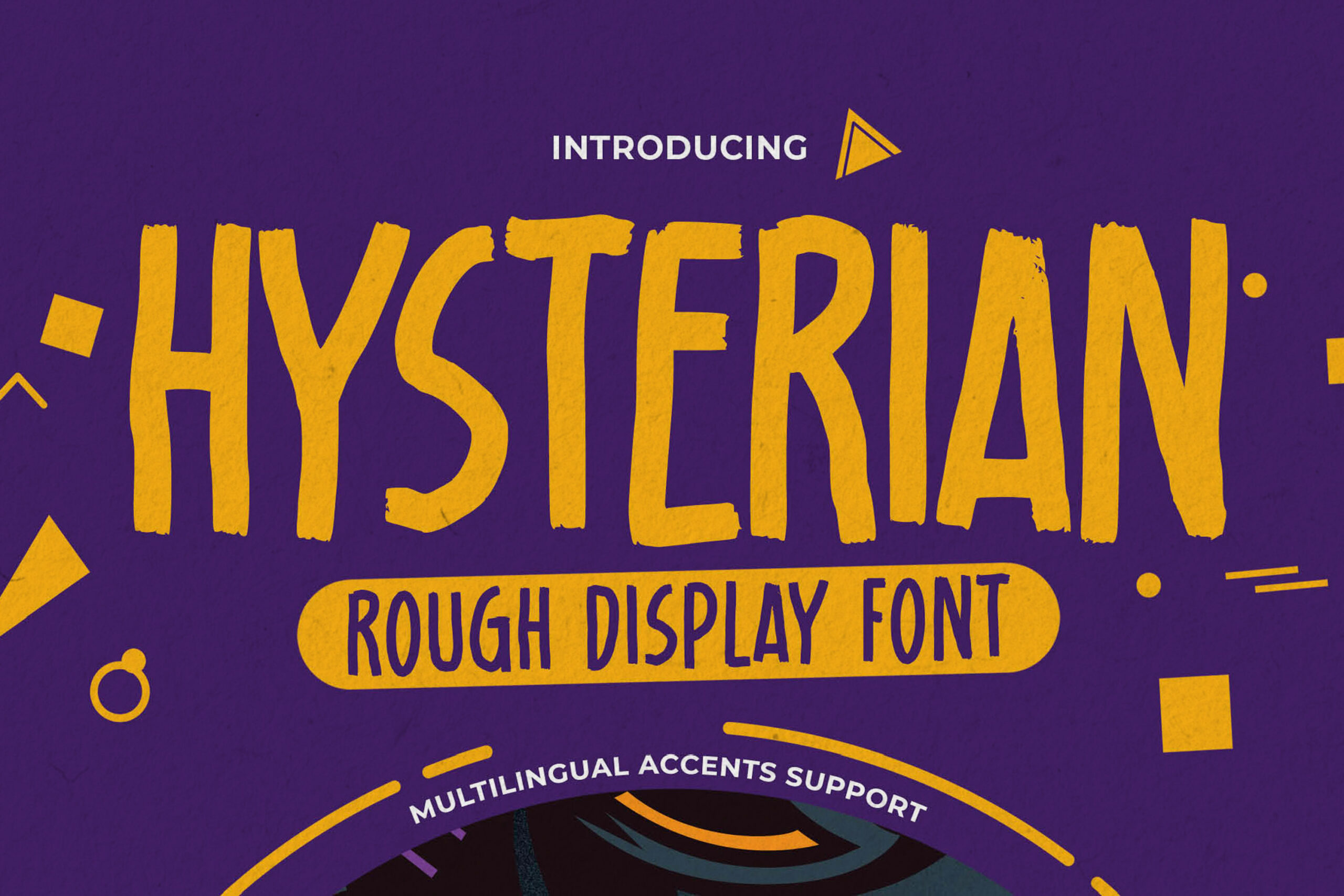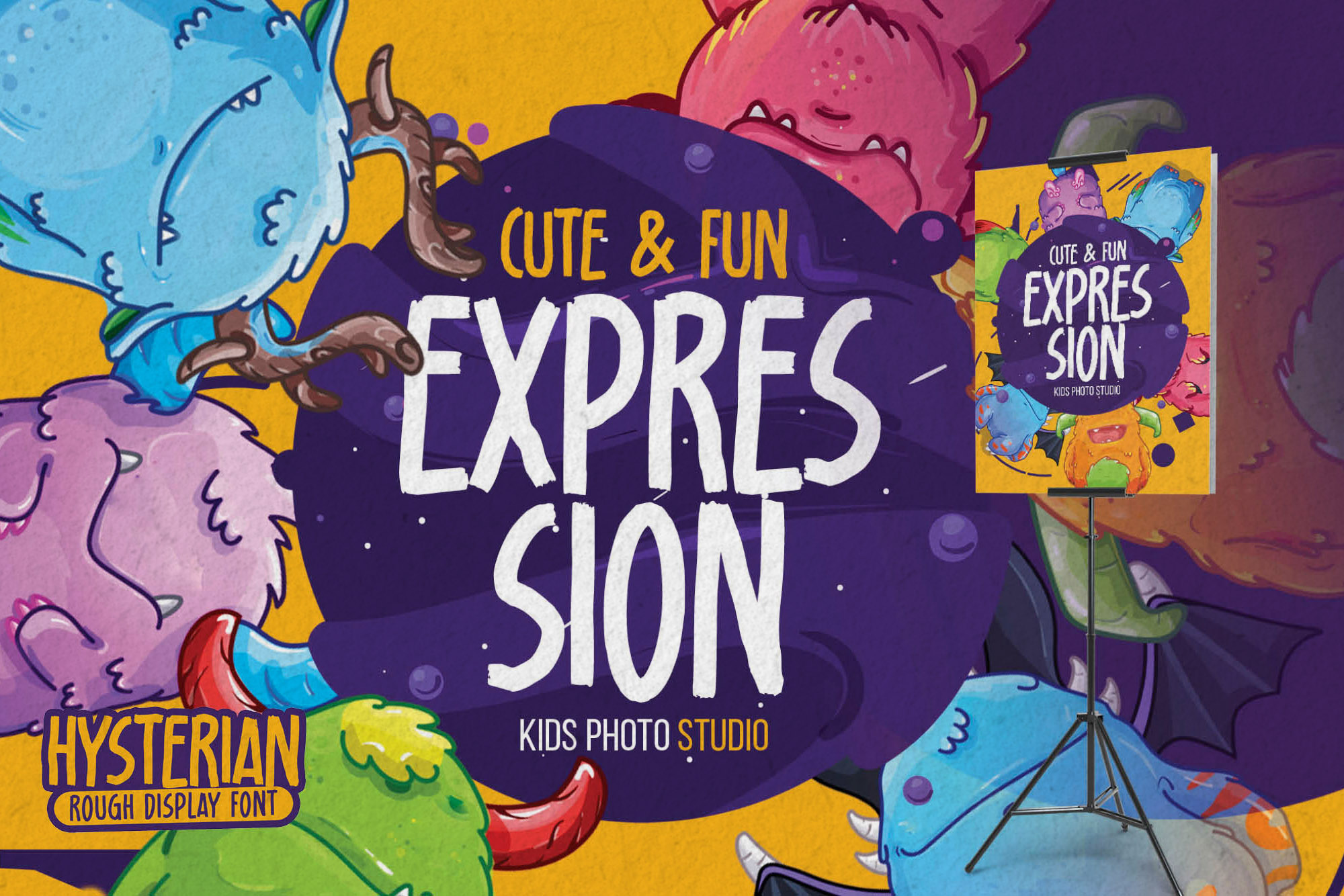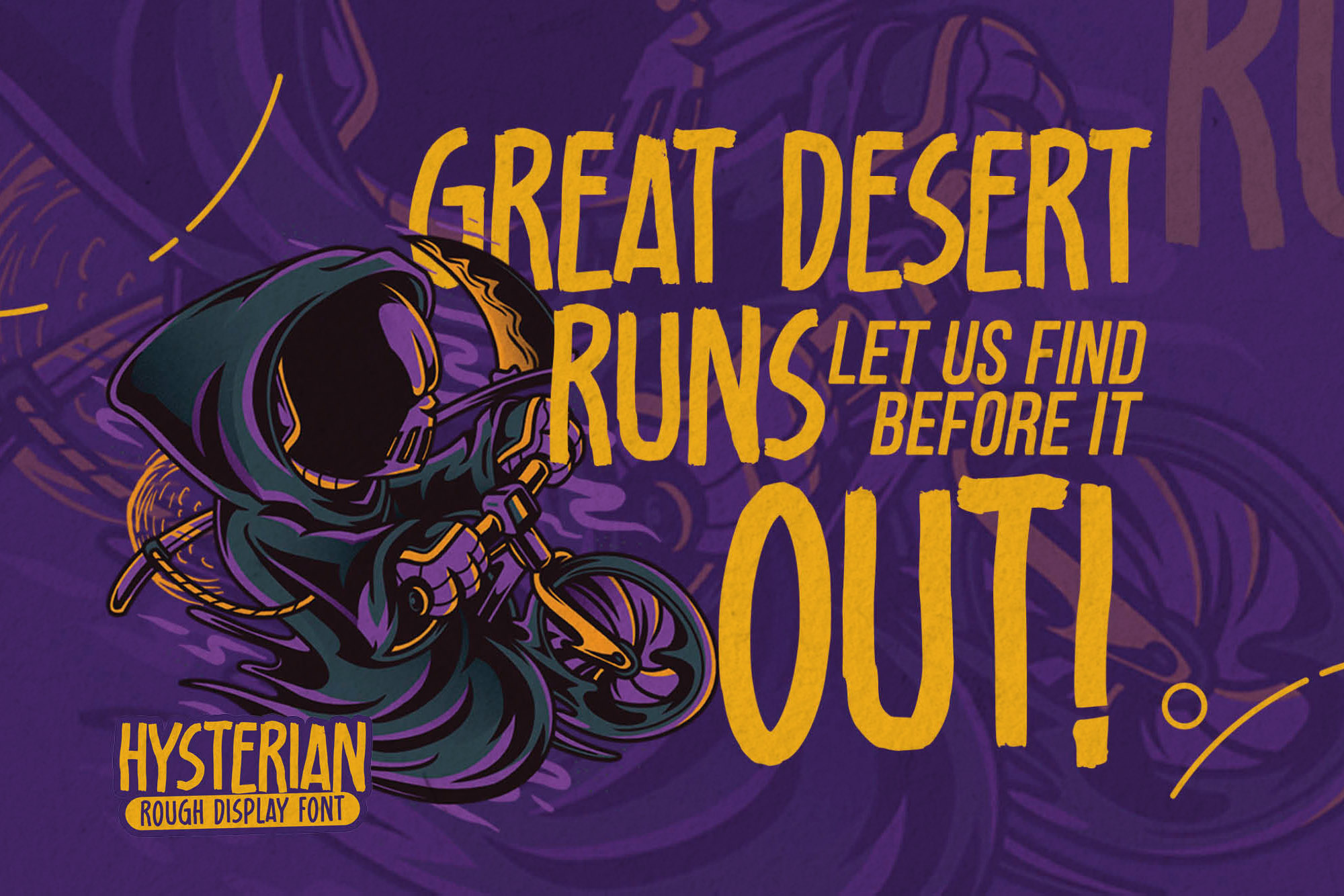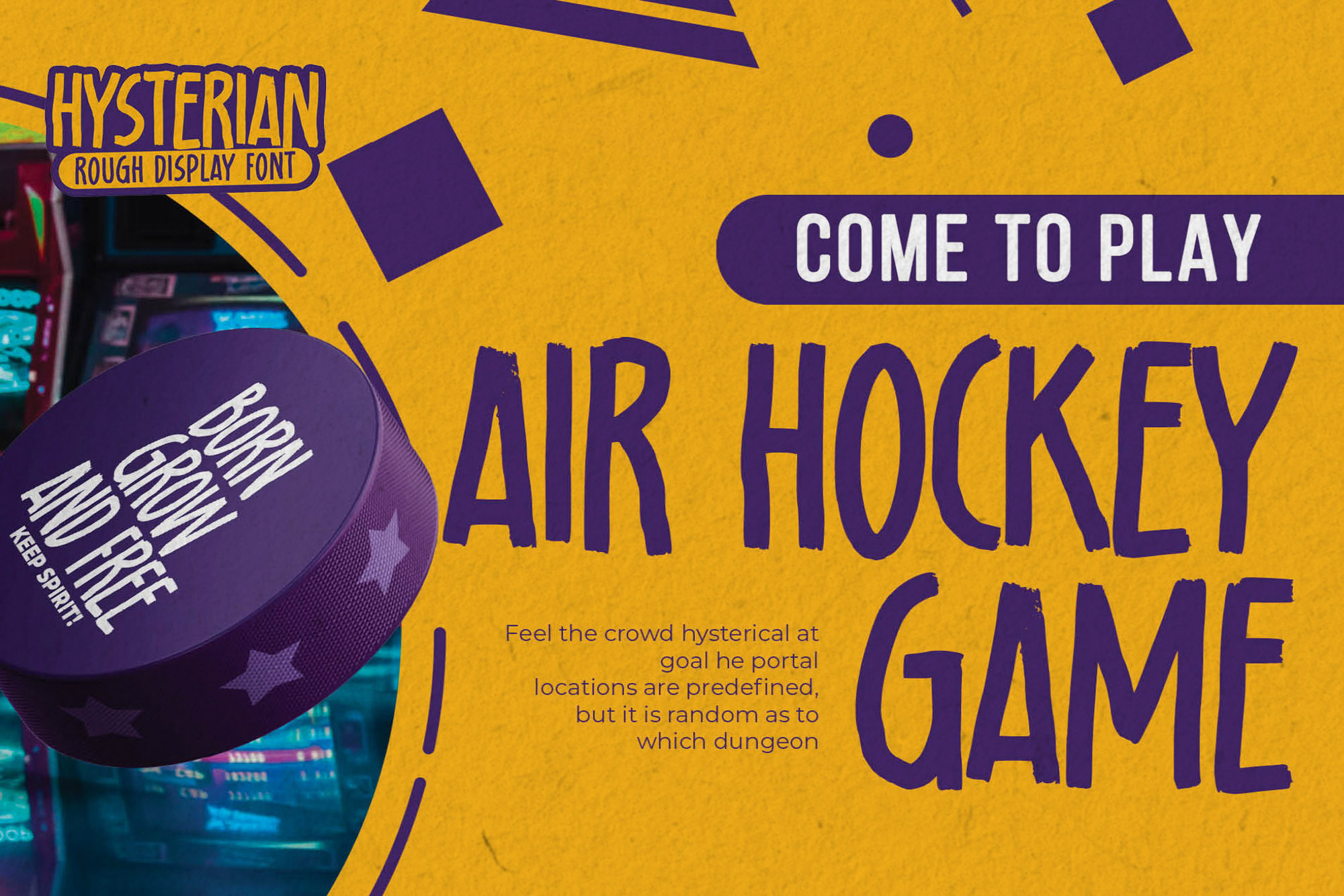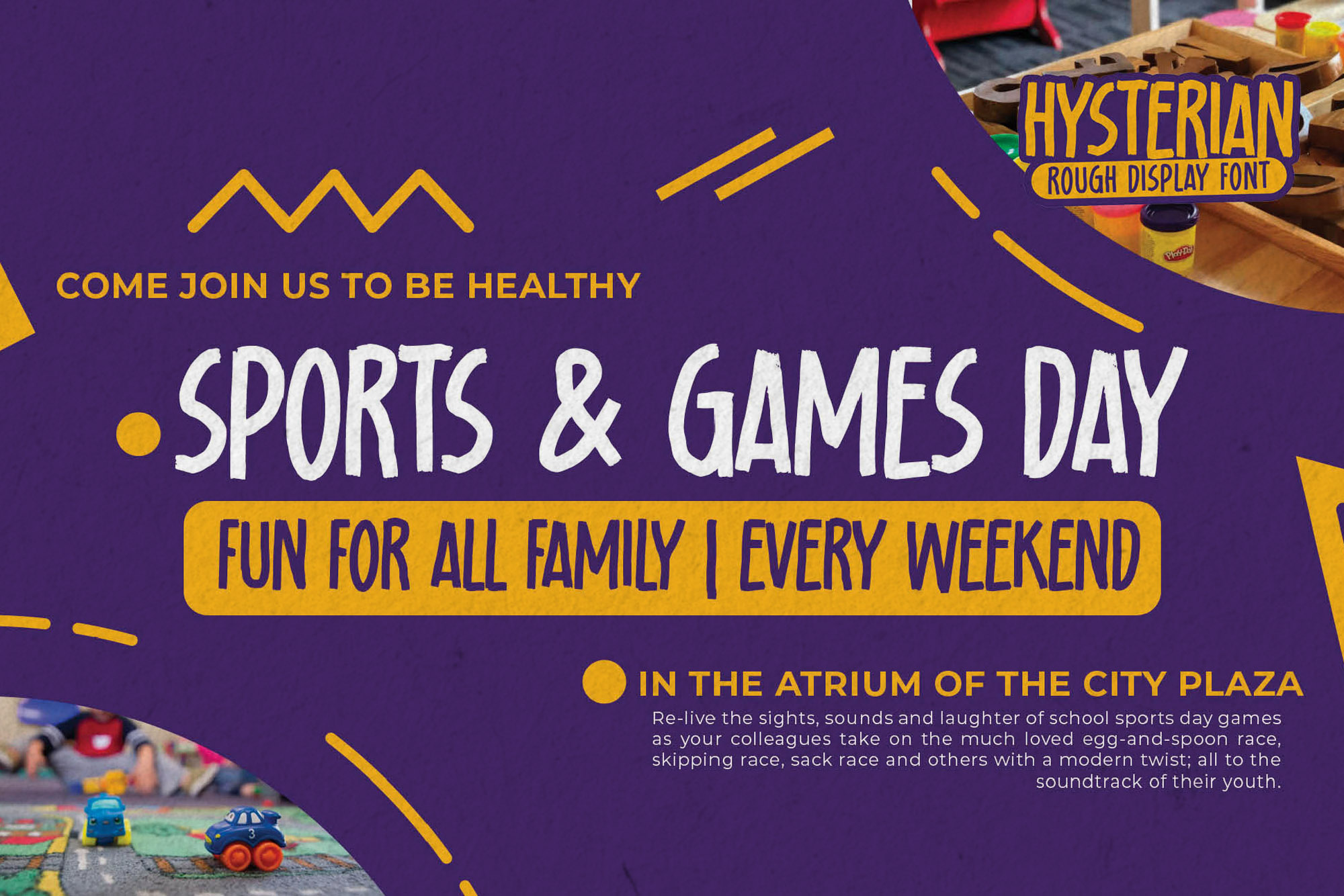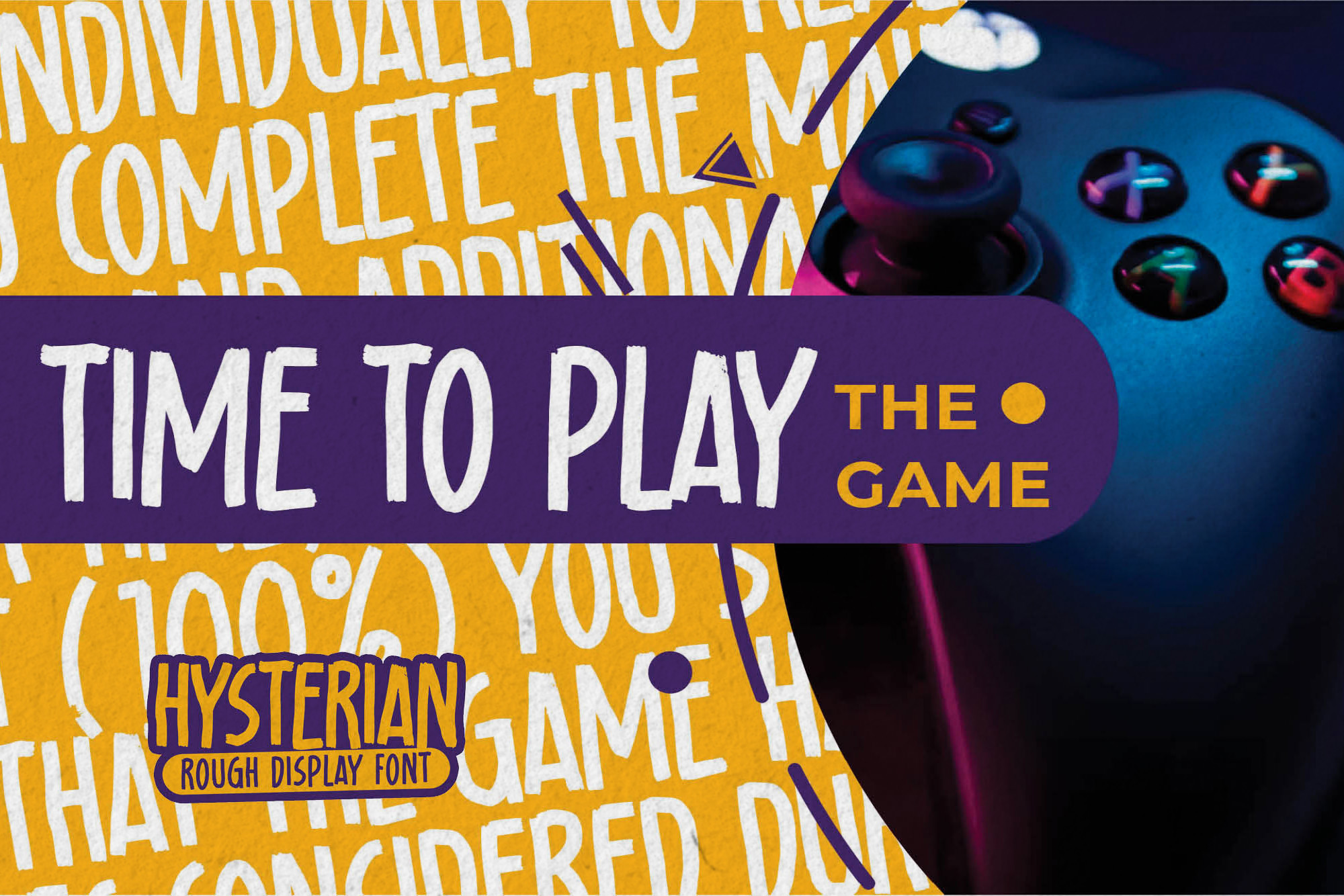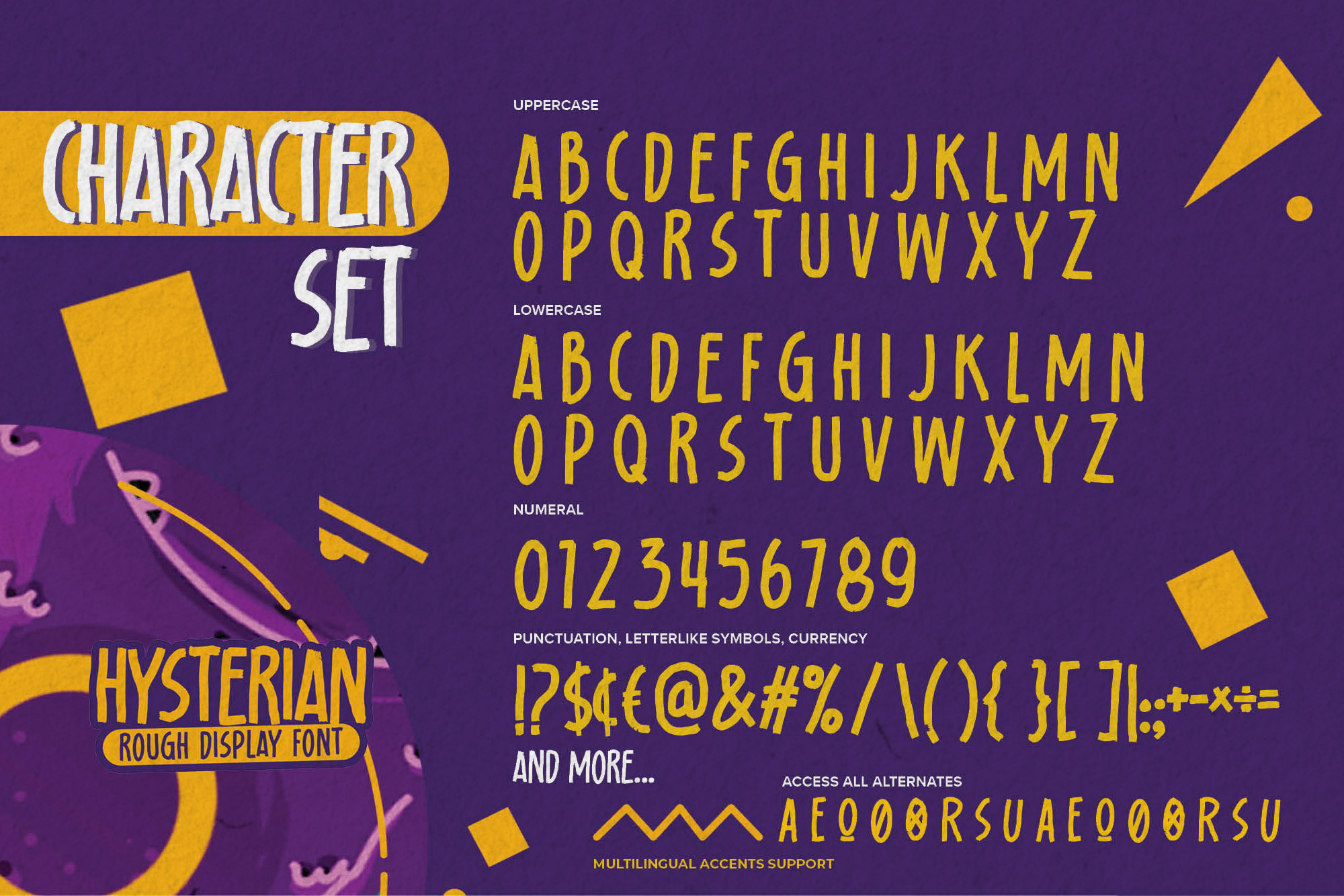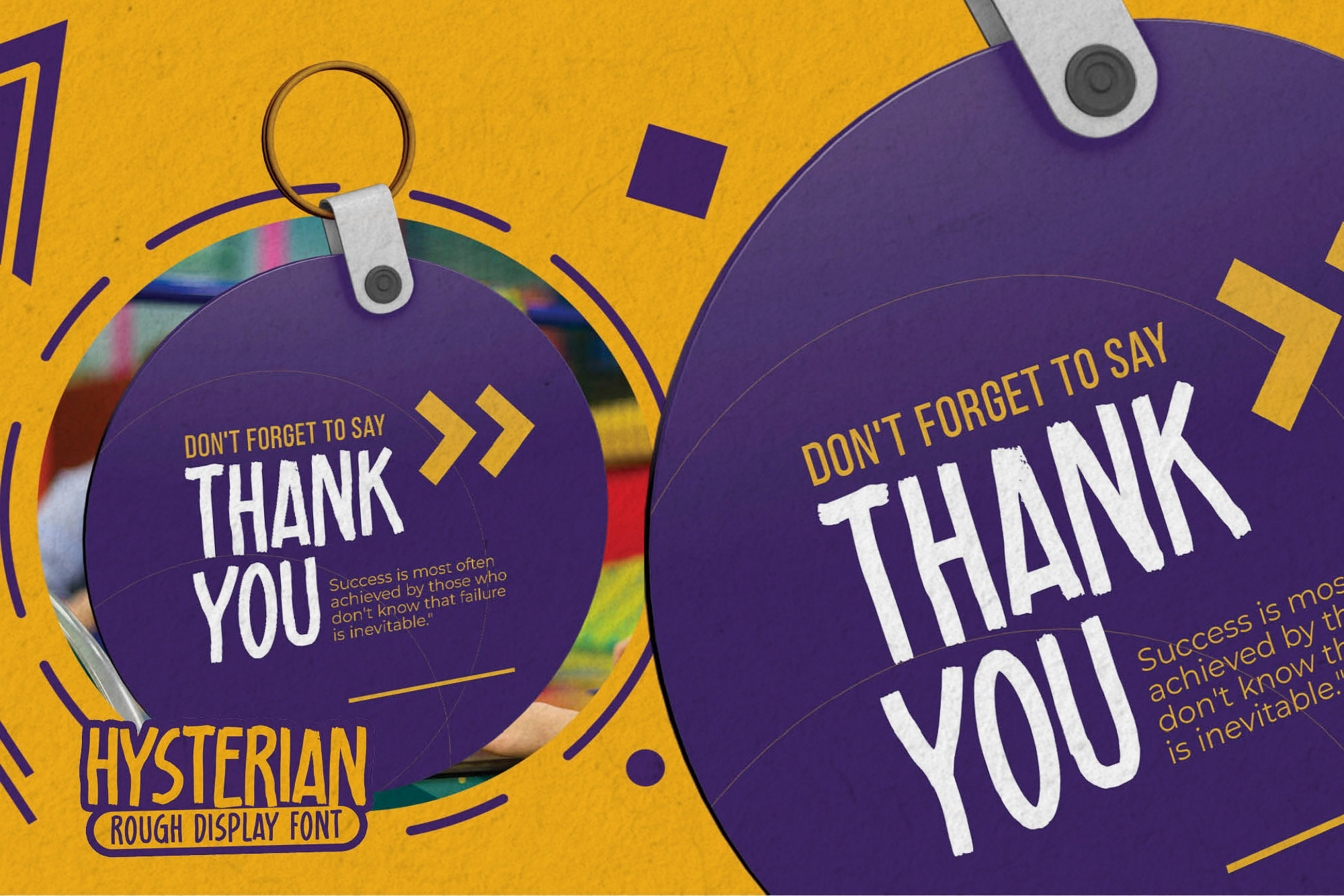
HYSTERIAN – Rough Display Font, modern style and dramatic movement that is written casually and quickly.
The best for labels,poster,project , designs look modern, authentic and fun. It’s perfect for labels, quotes, posters, DIY projects, branding, packaging, greeting cards, websites, photography overlays, signs, scrapbooking, tags and so much more! That is why HYSTERIAN has a textured, and strong characteristic more natural look. You can activate Alternates glyphs OpenType panel.